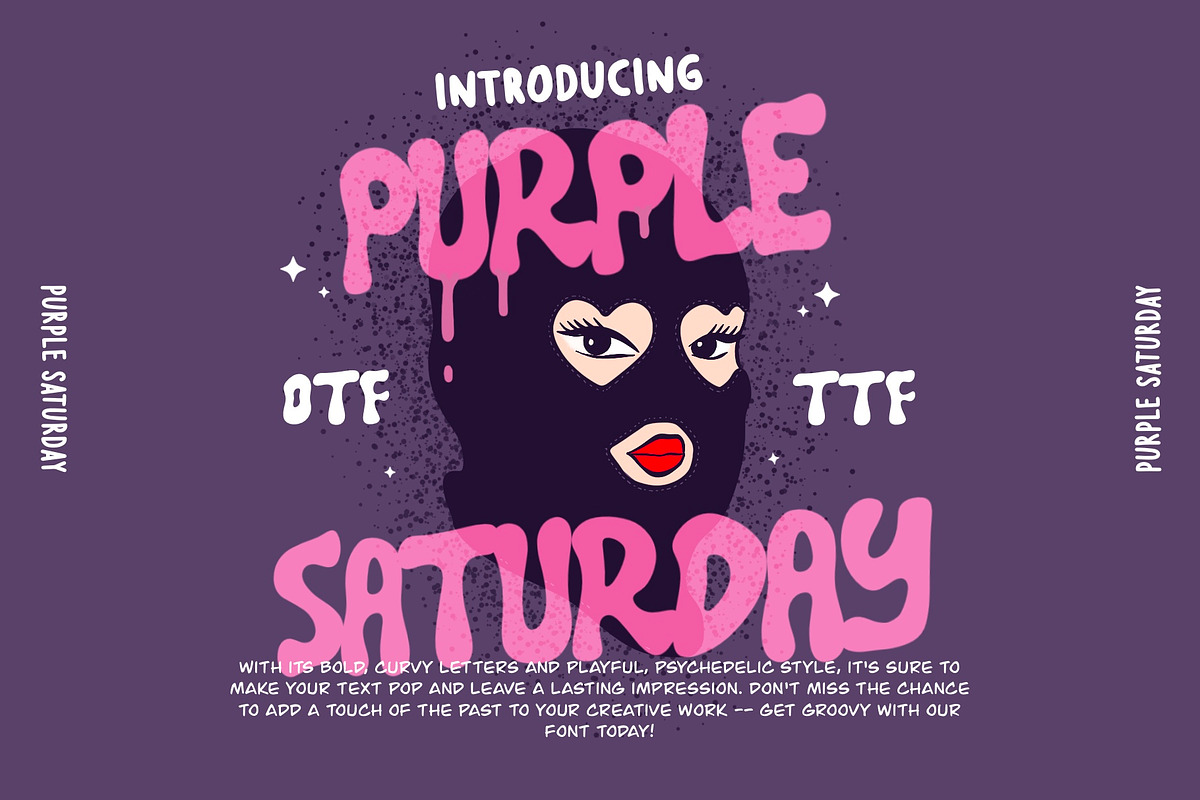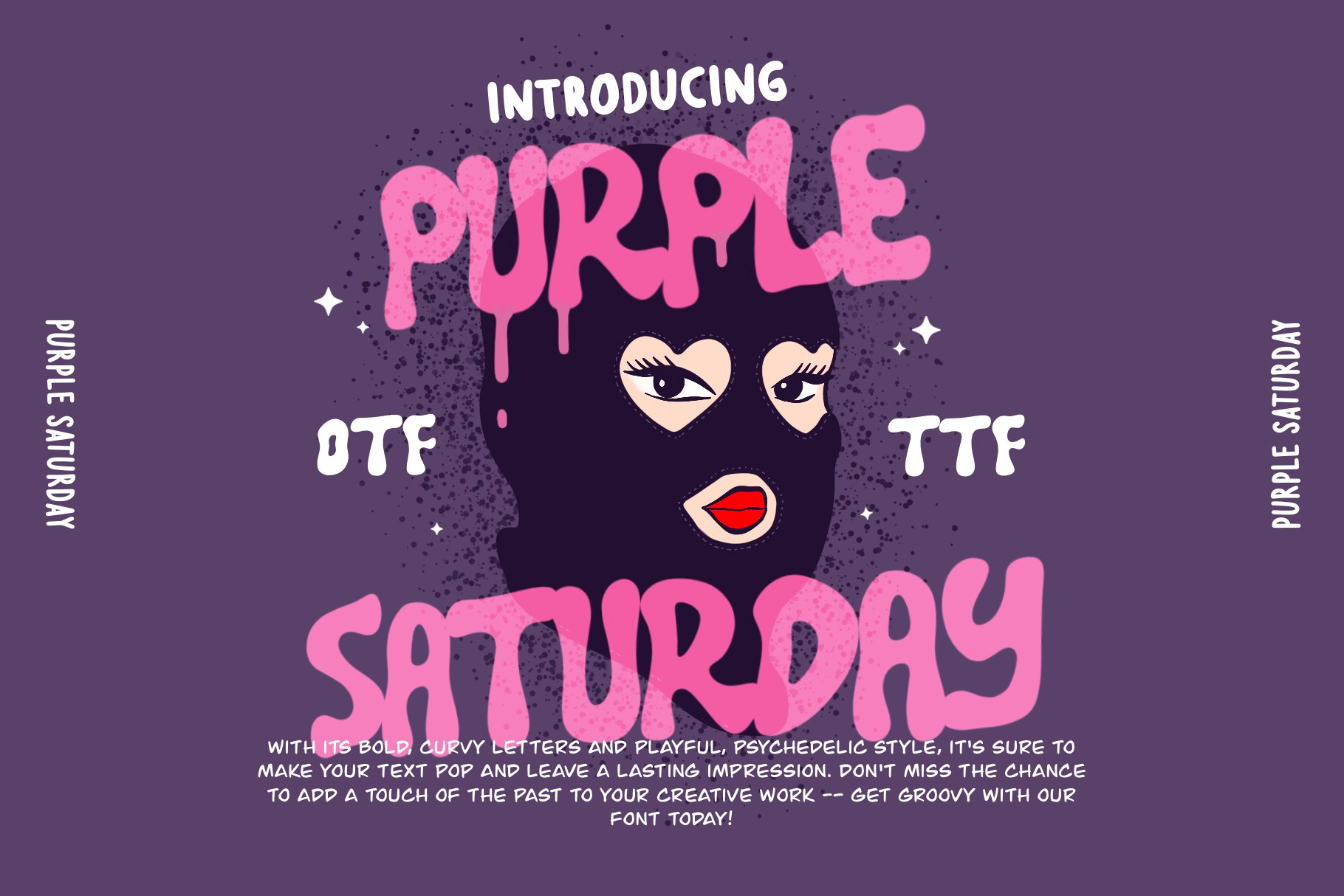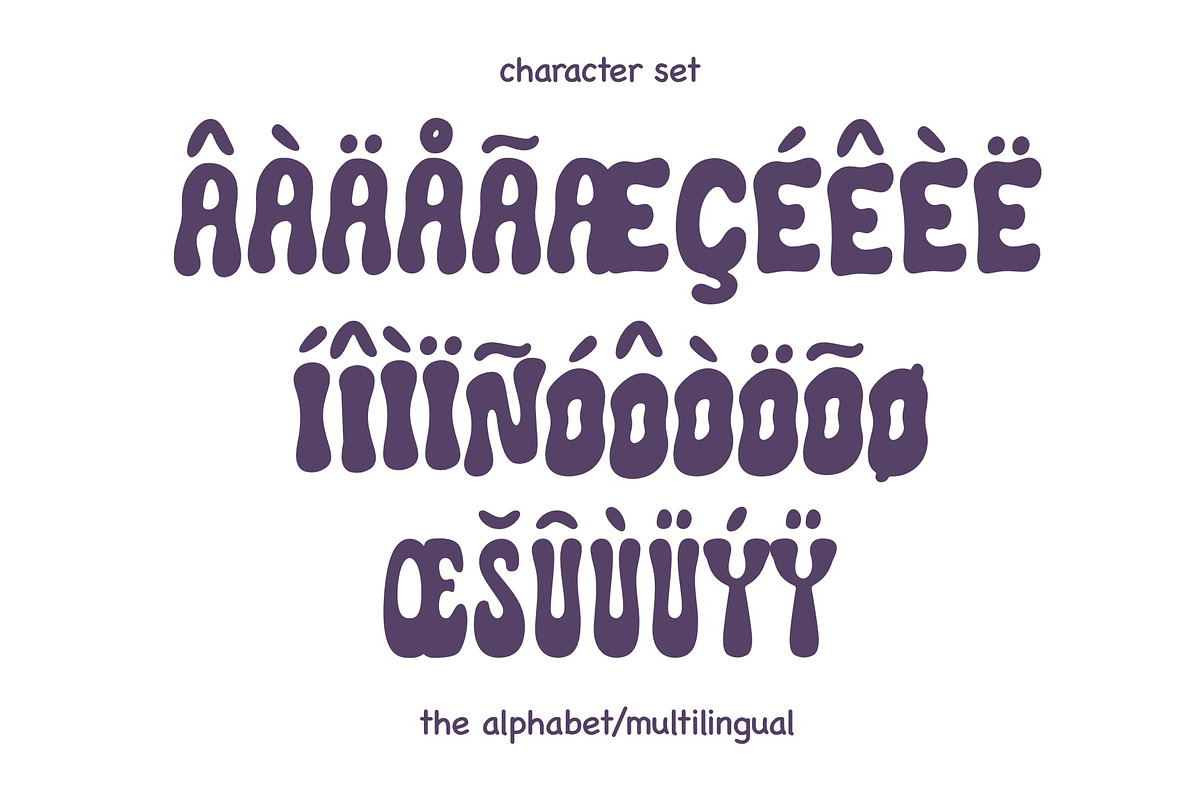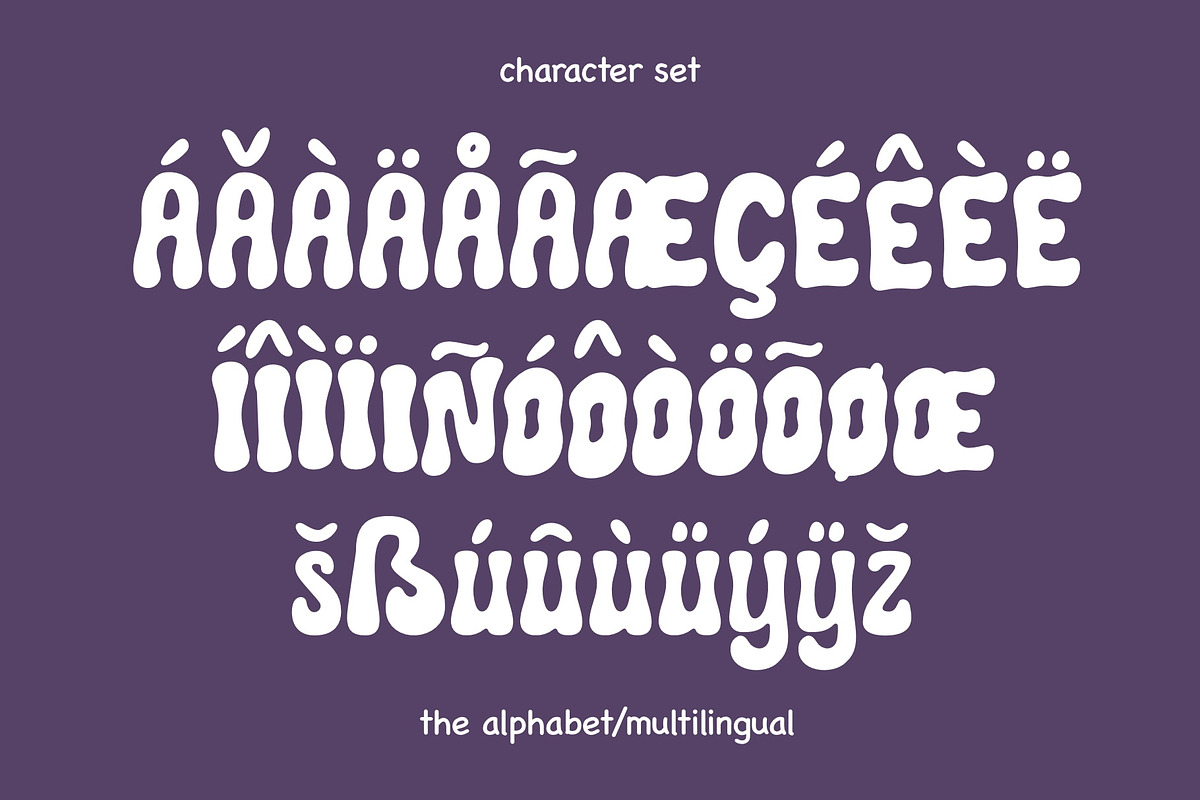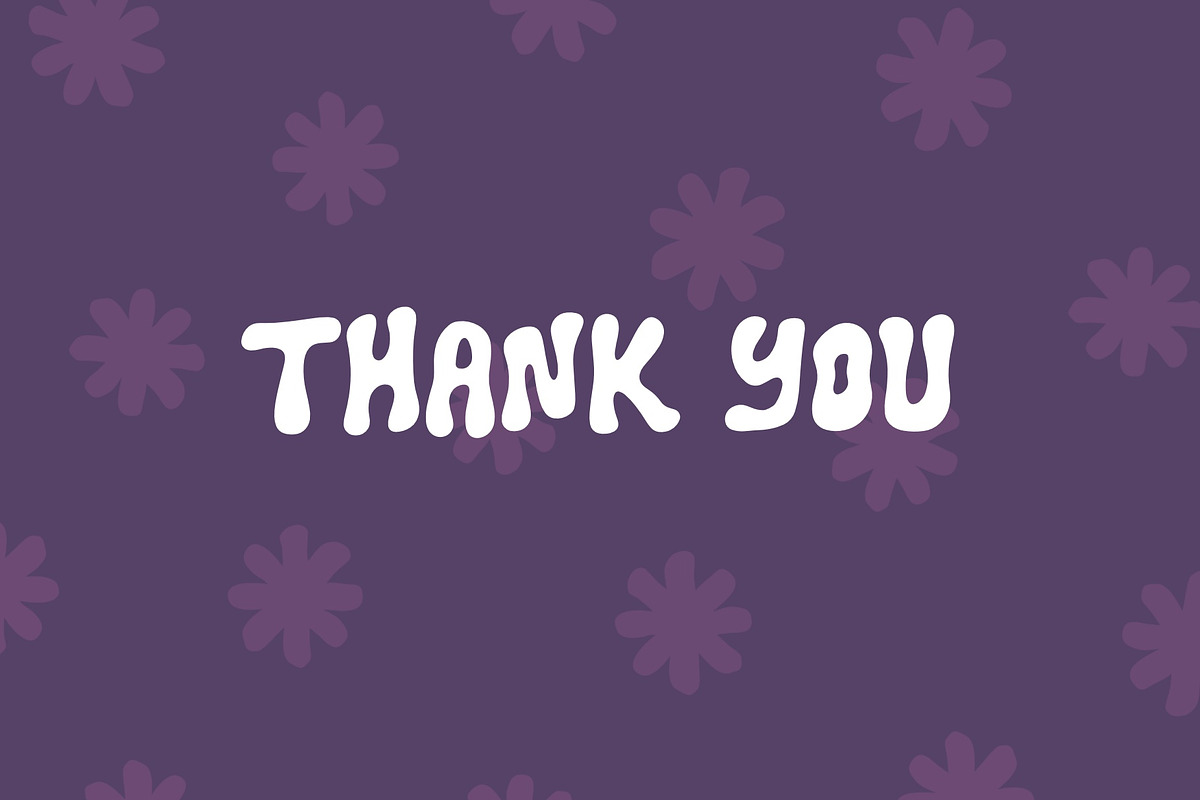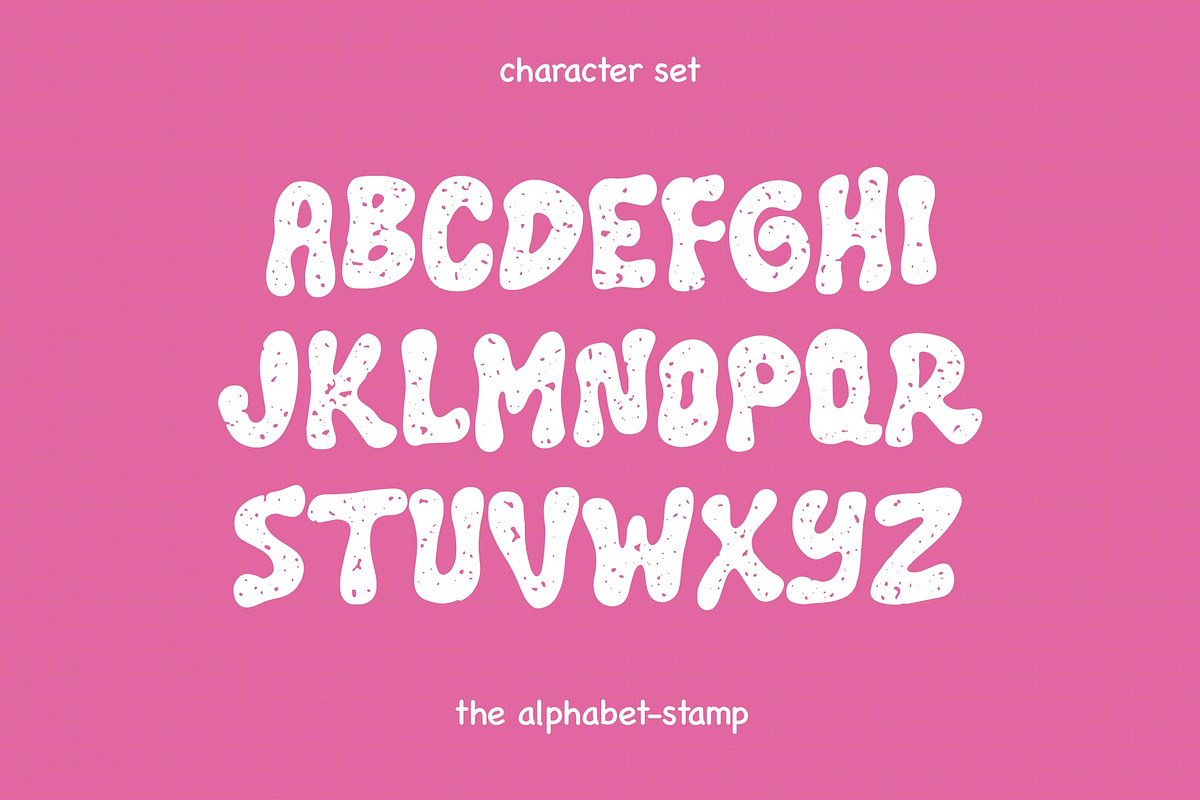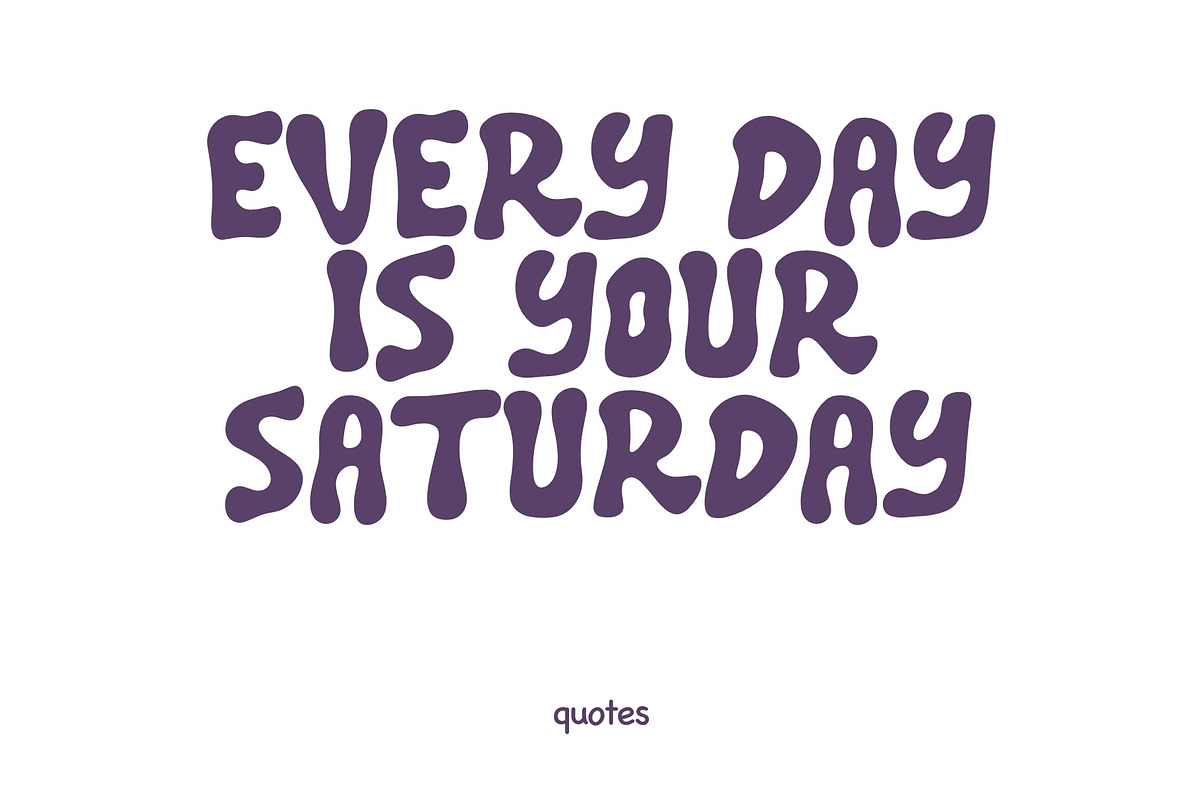
Purple Saturday Font - Groovy Font
"Purple Saturday" is a delightful groovy cute handwriting retro font style that encapsulates the essence of the carefree and vibrant spirit. This typeface available in SVG format, compatible with advanced tools such as Cricut and Glowforge, and for use in Procreate. "Purple Saturday" evokes the feeling of a lazy weekend afternoon filled with love, laughter, and a hint of nostalgia, making it an ideal choice for a wide range of creative endeavors, from event invitations to branding and beyond.